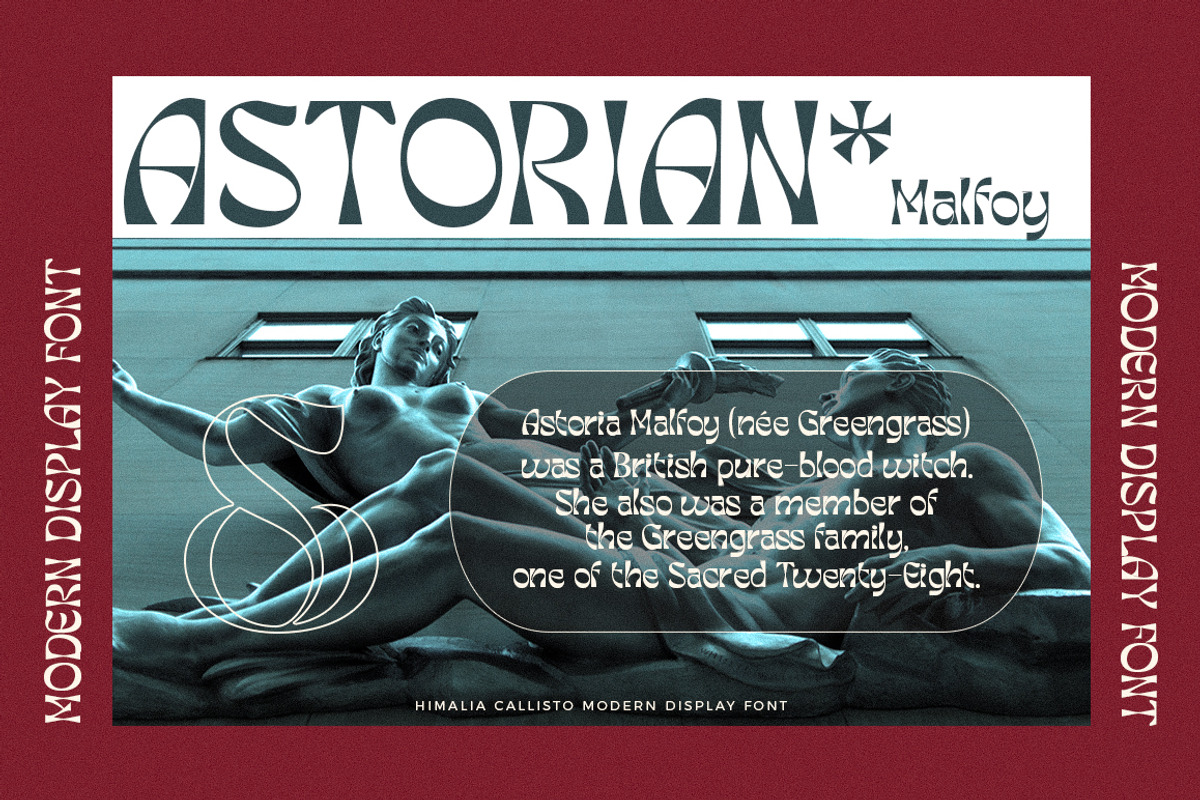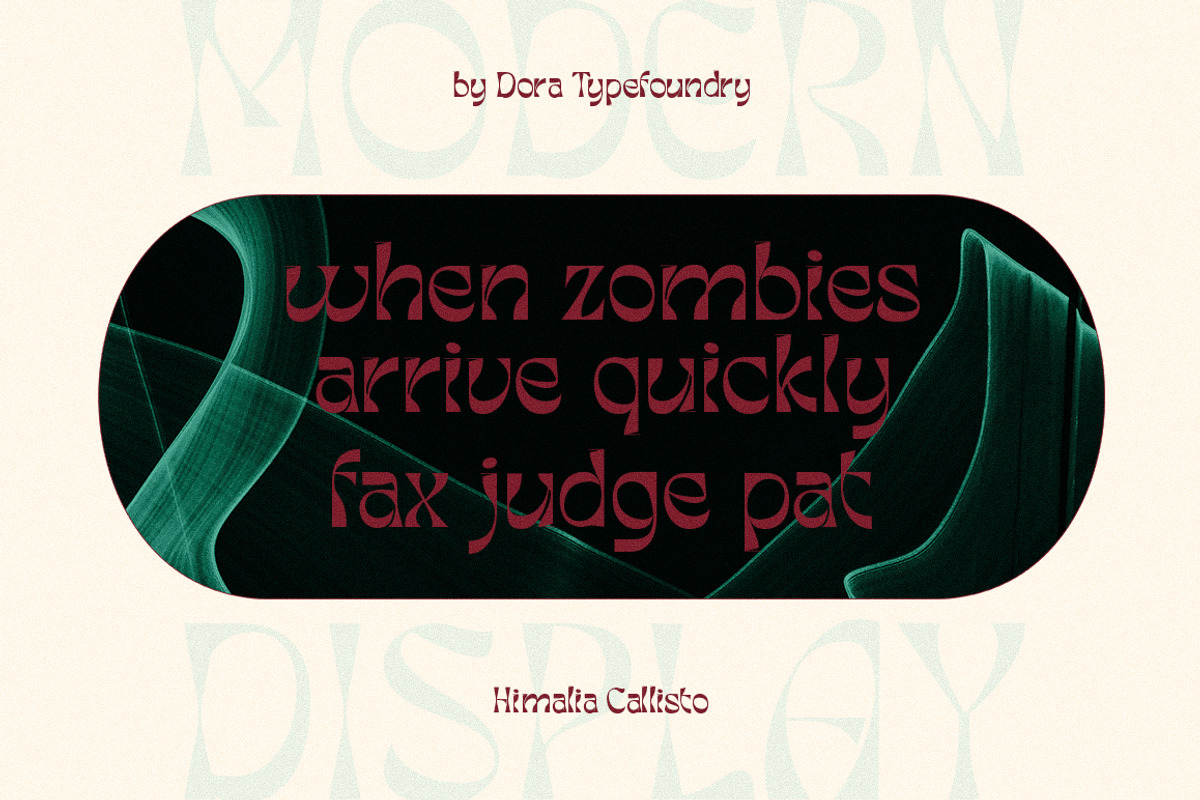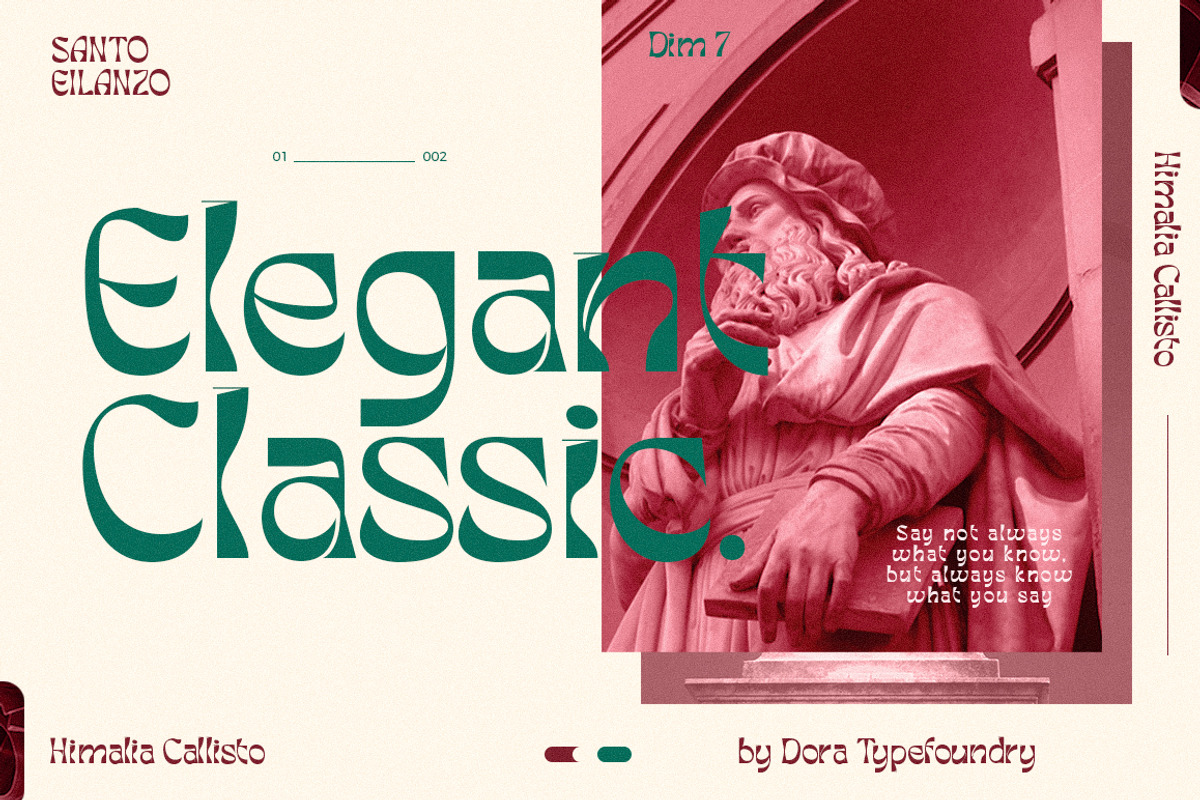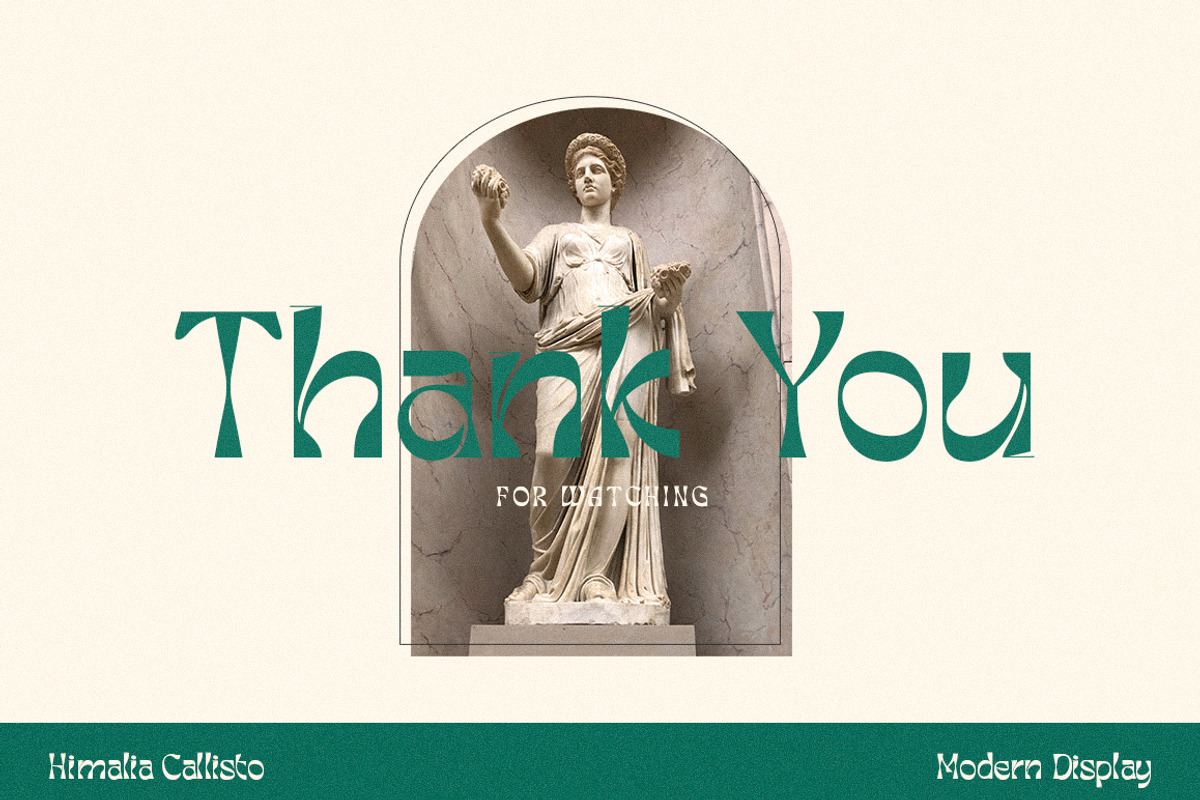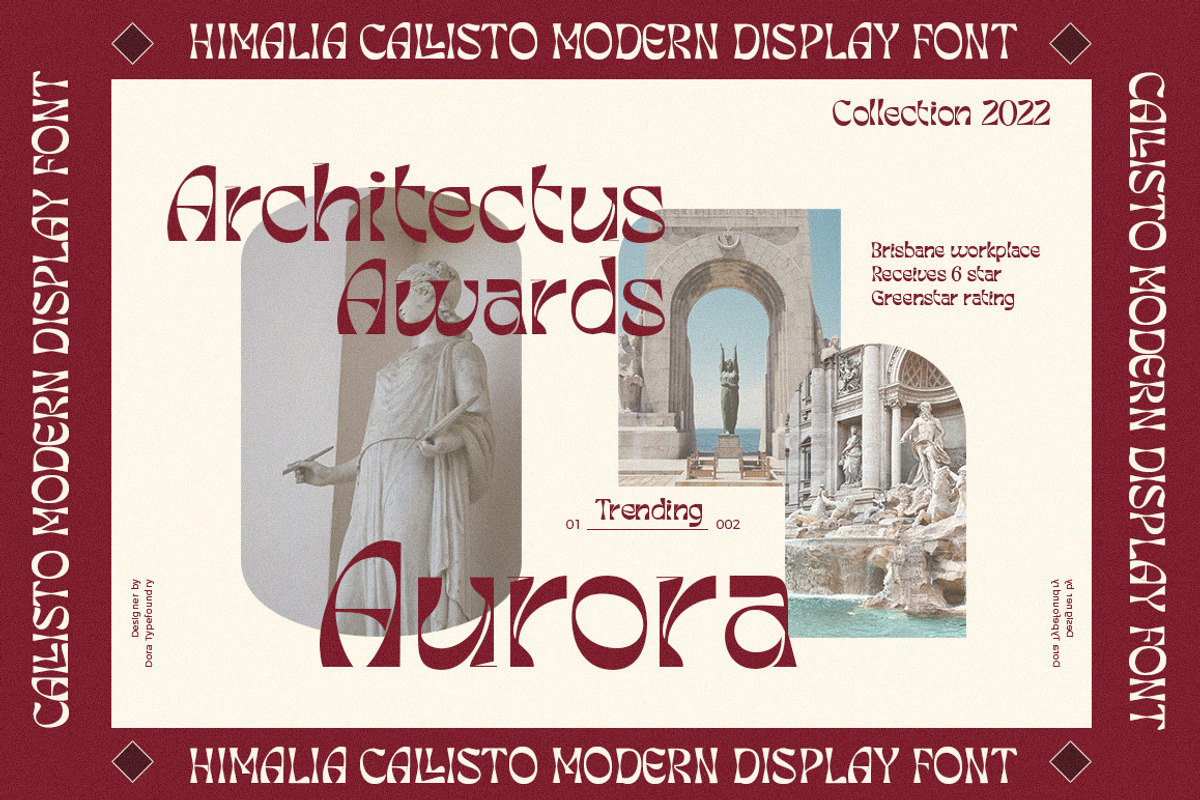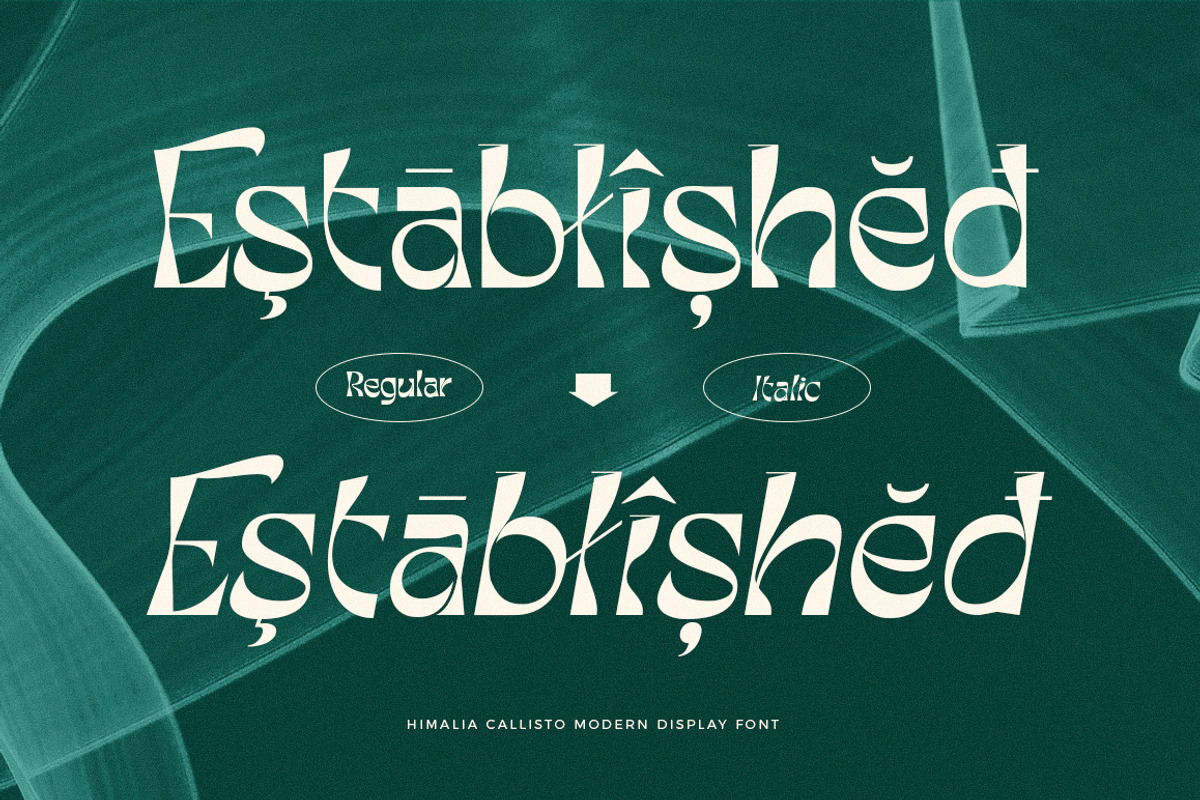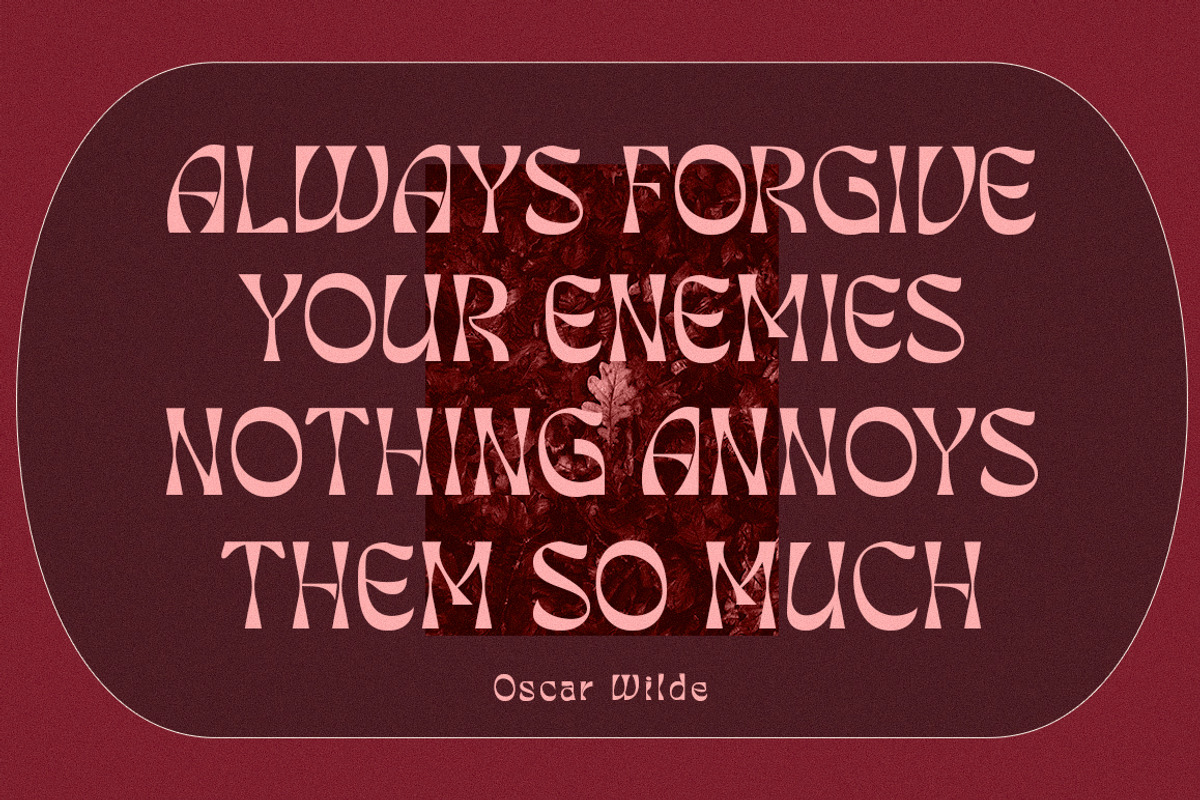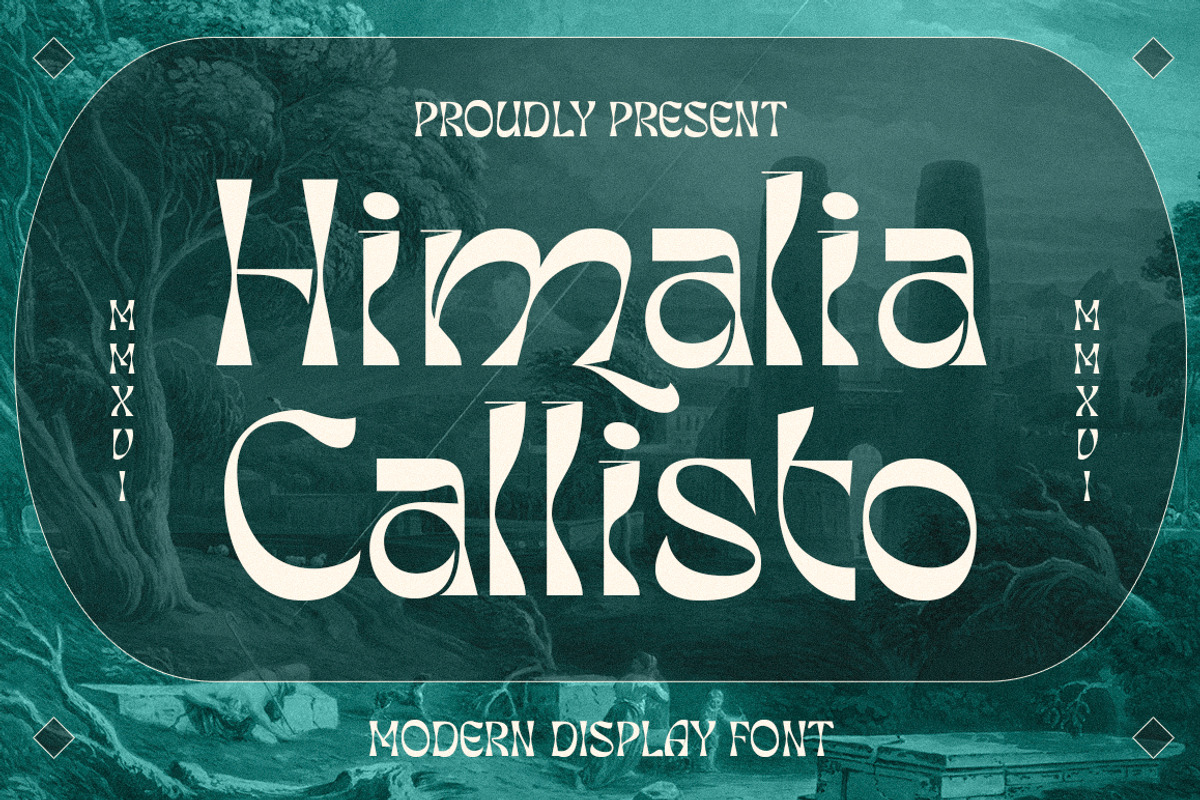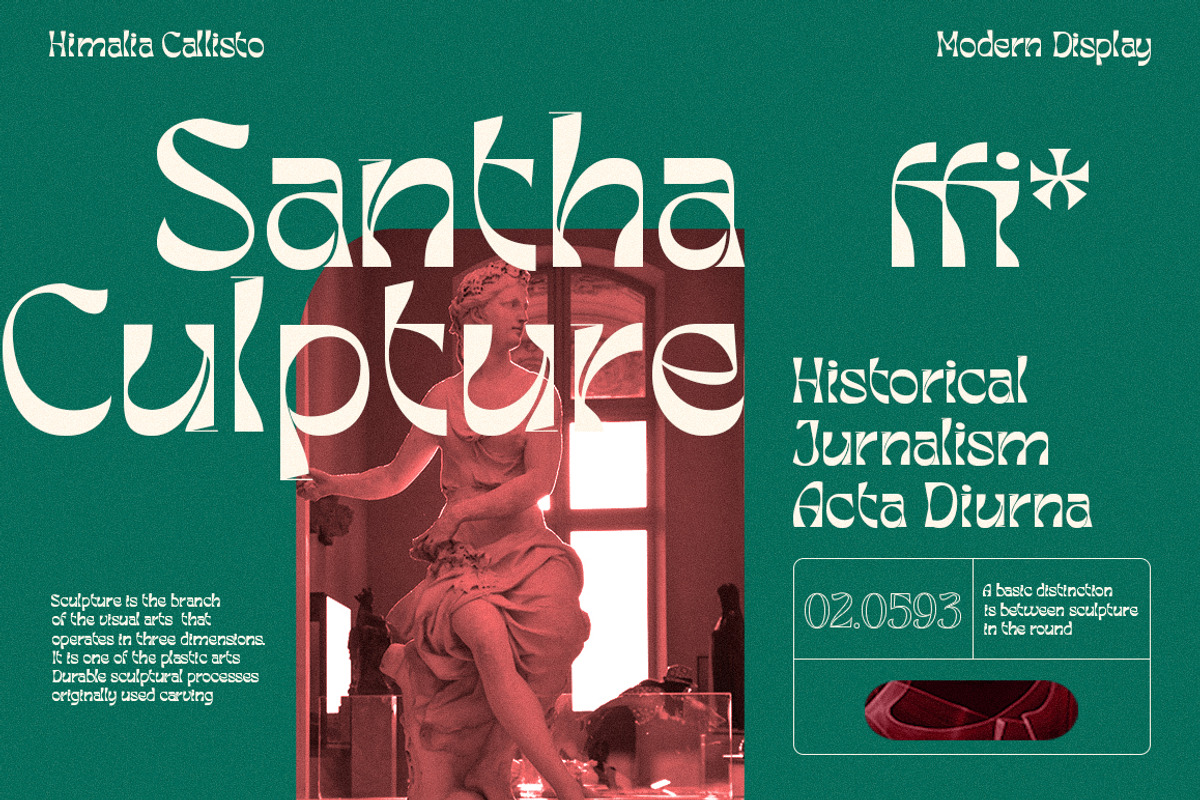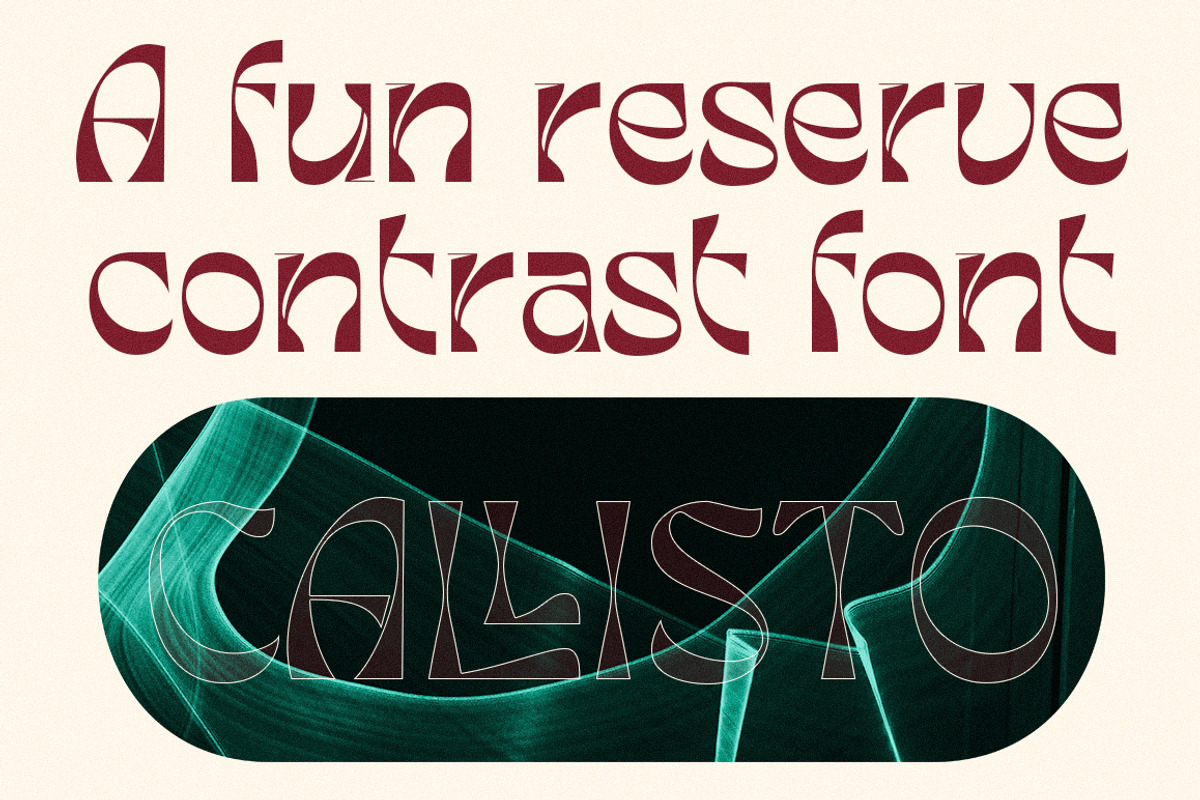
Himalia Callisto
Introducing a cool unique display font named Himalia Callisto experimental typeface Embracing the classic era combined with a modern twist. ready to logos, titles, branding, magazines, album covers, book covers, films, clothing designs, quotes, invitations, flyers, posters, greeting cards, product packaging, printed quotes for any project you can think of.
Himalia Callisto is equipped with uppercase, lowercase, numbers and full punctuation + Multi language support and PUA-encode.
- Uppercase & Lowercase letters
- Characters with accents
- Supports Multiple Languages